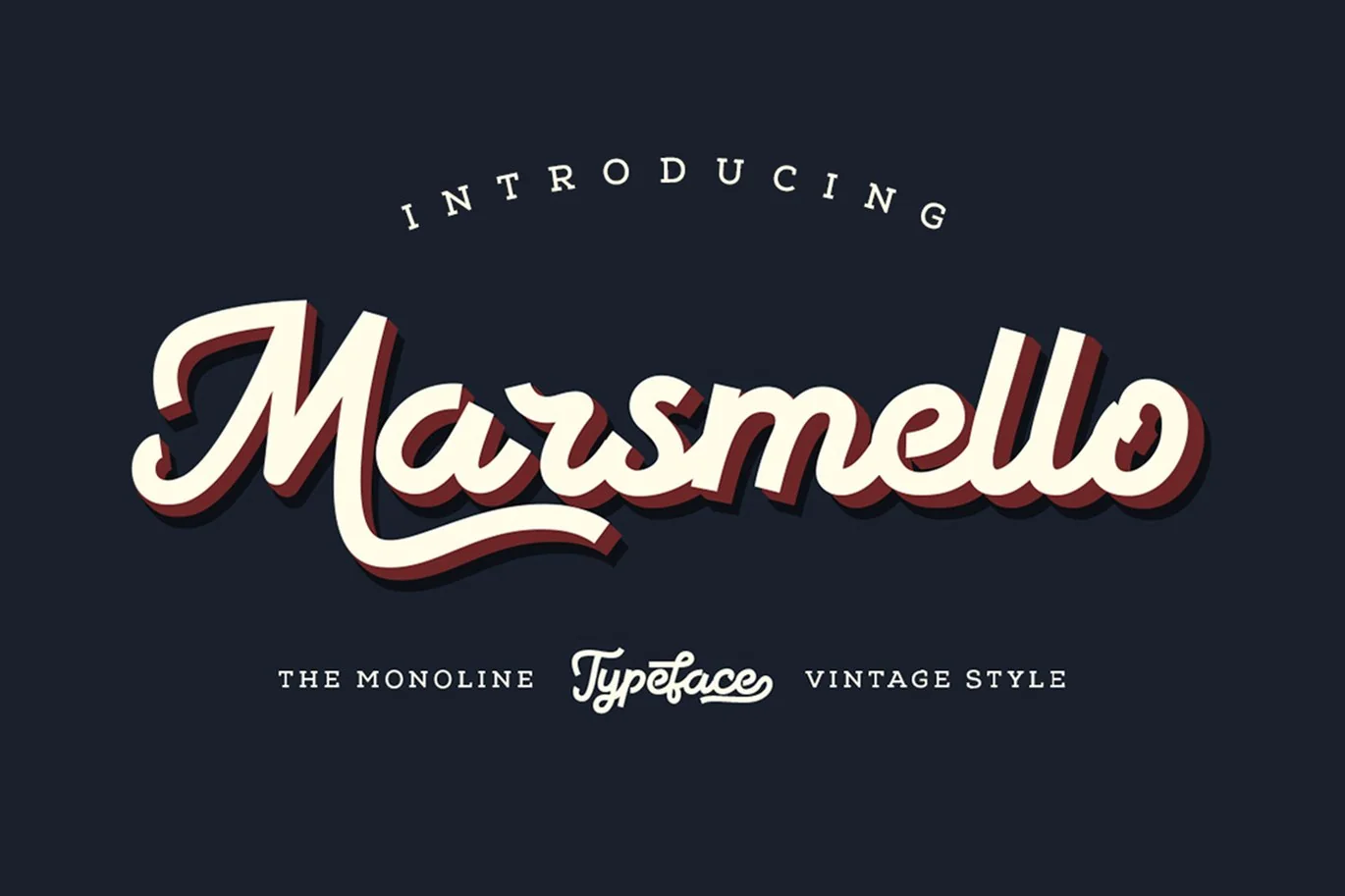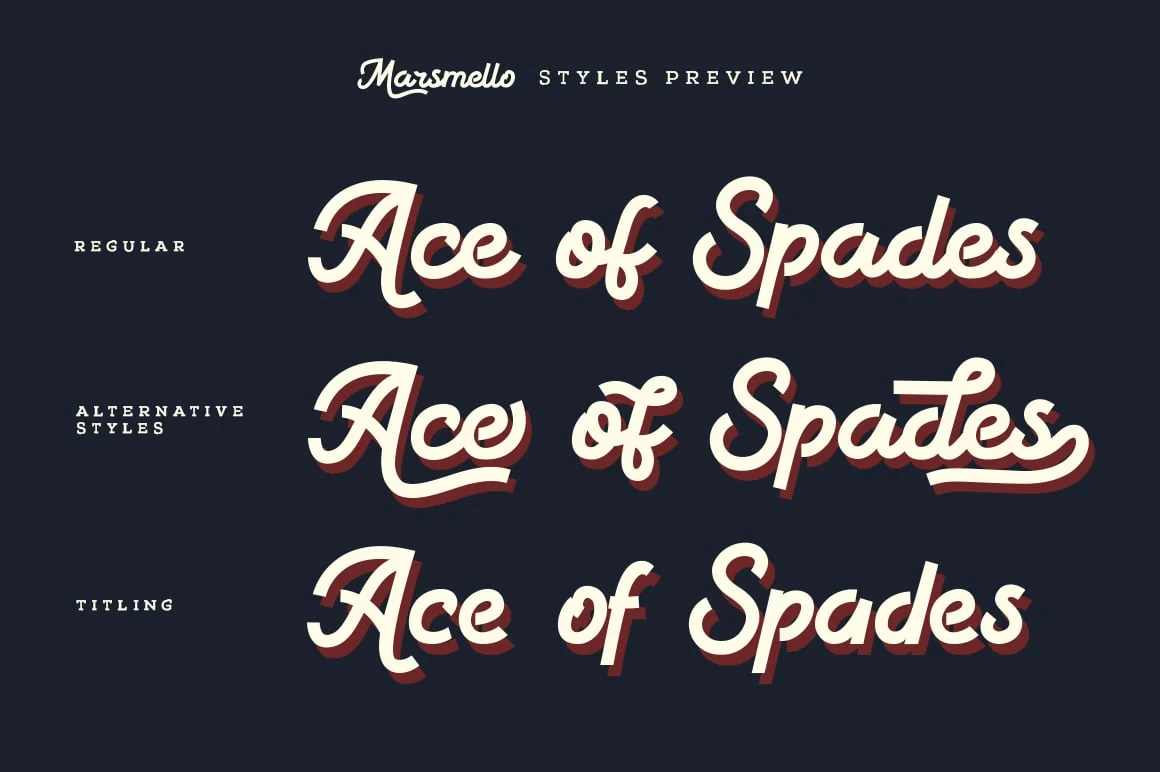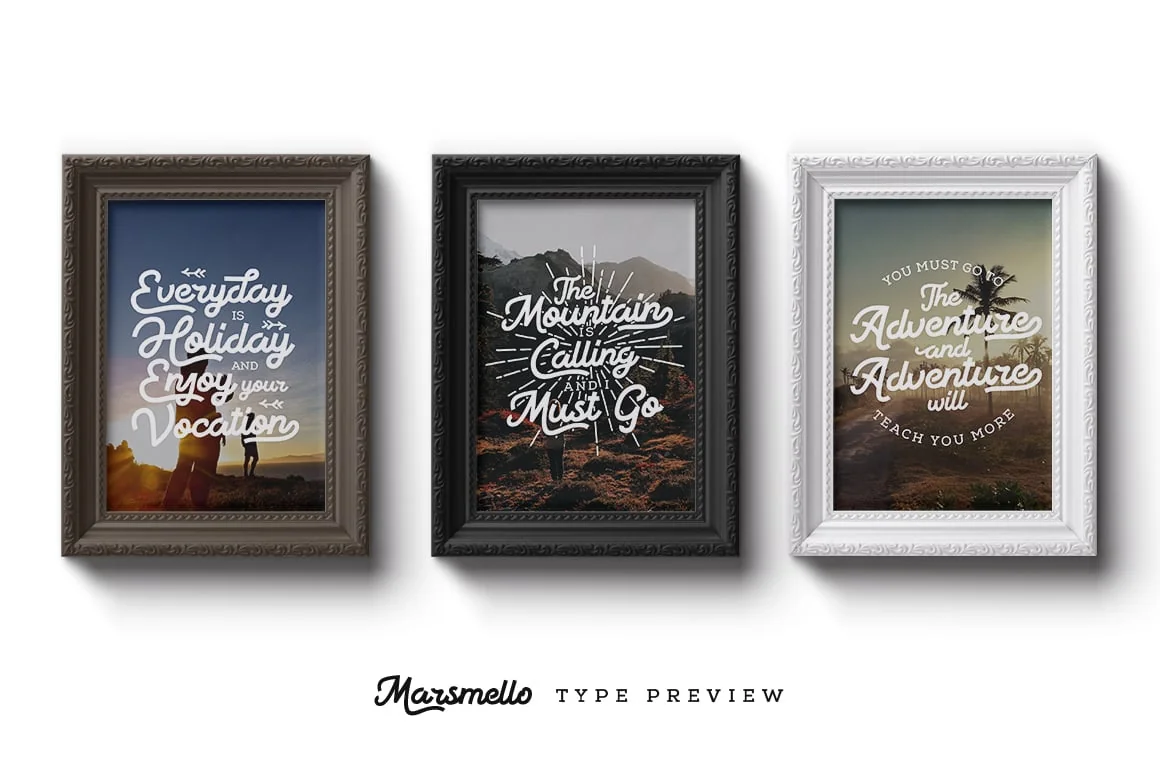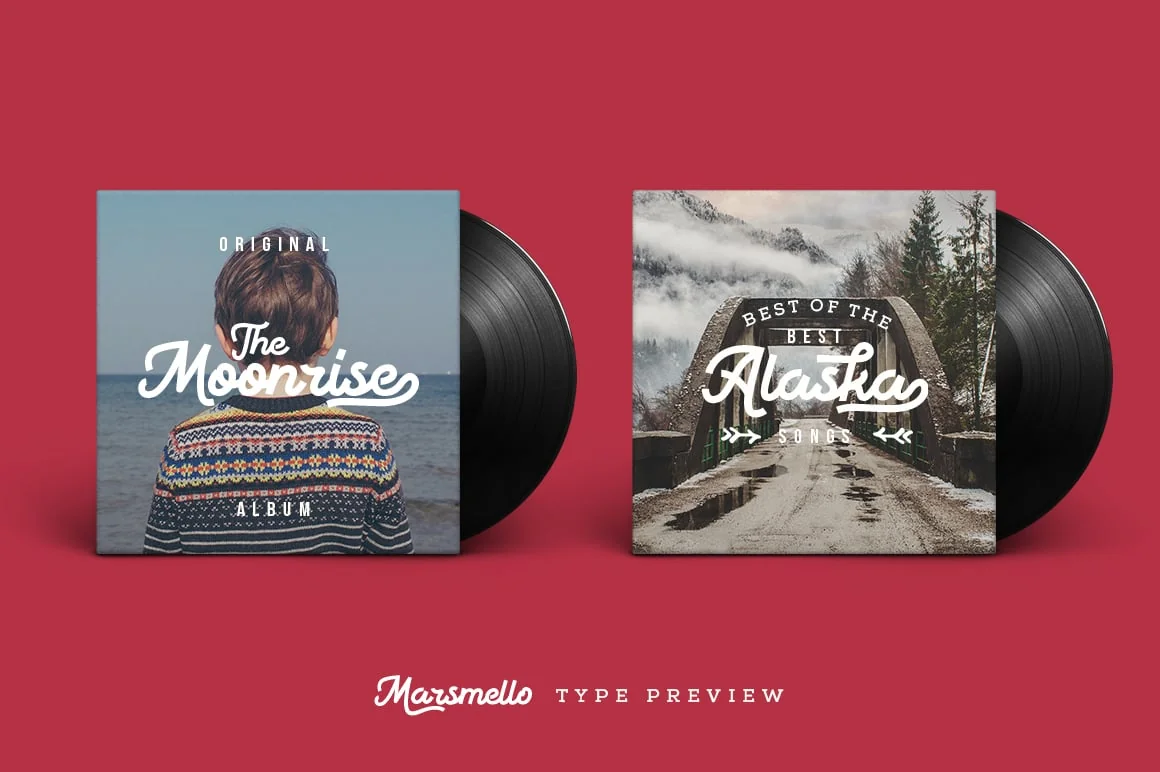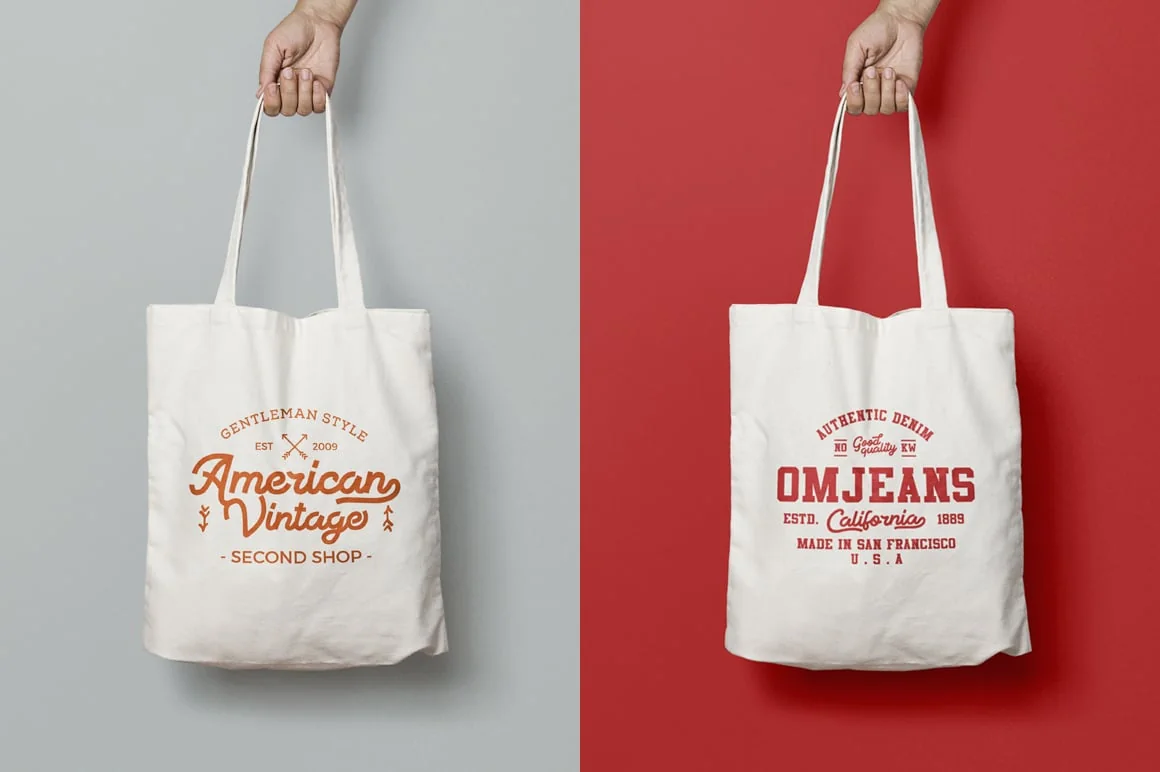
Marsmello Typeface
Marsmello typeface is monoline vintage styles typeface with so many variation glyph and alternates styles, with monoline inspired by sign painted styles it’s very eye catchy and beautifull looks. Marsmello is perfect to using for Logo, Latterhead, Invitation, Poster, Lables and many more.
- Numerals & Punctuations
- Stylistic Styles
- Discreationary Ligatures
- Contextual Alternative
- Titling